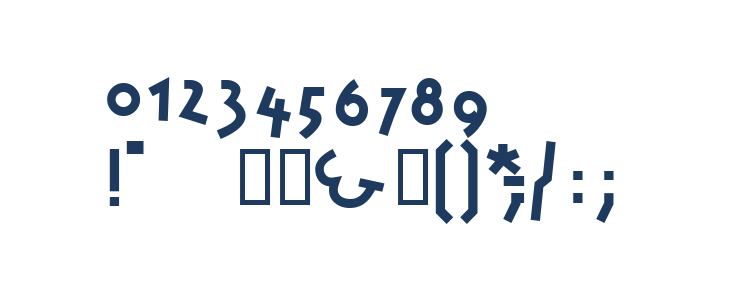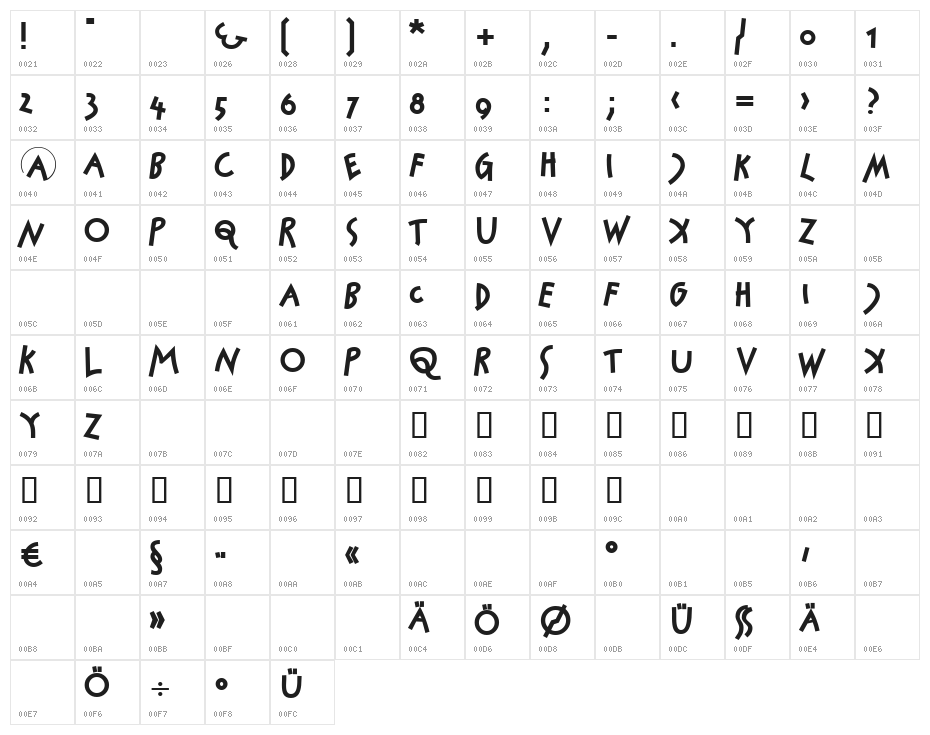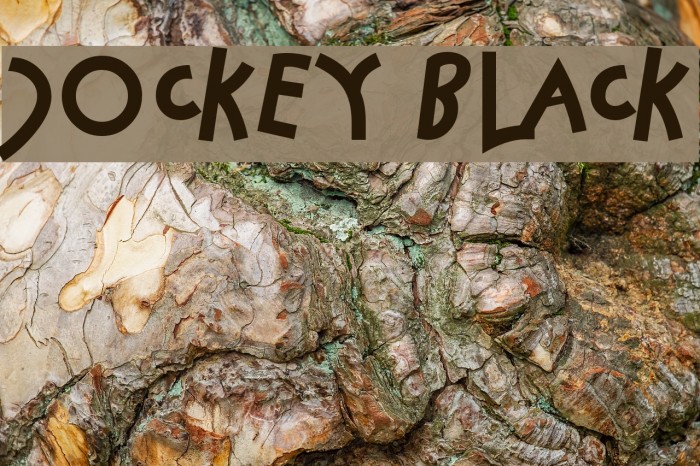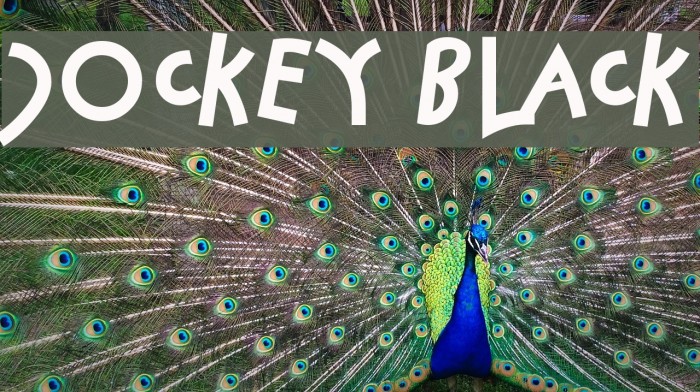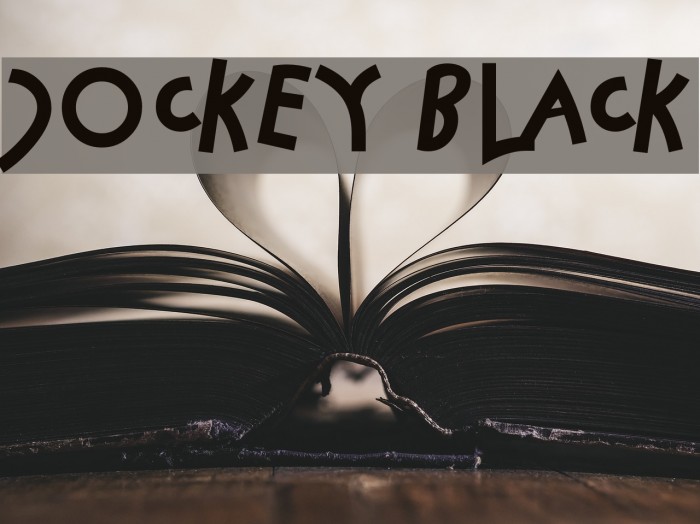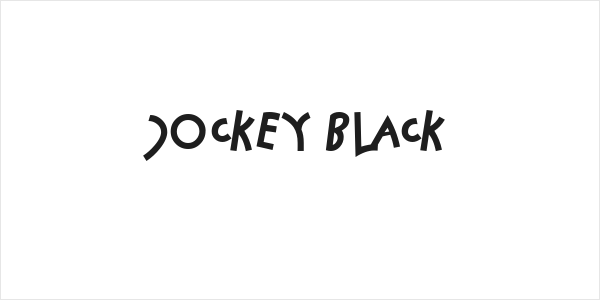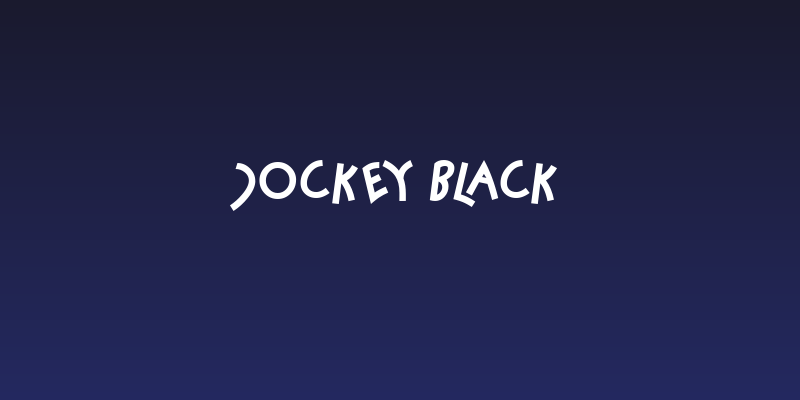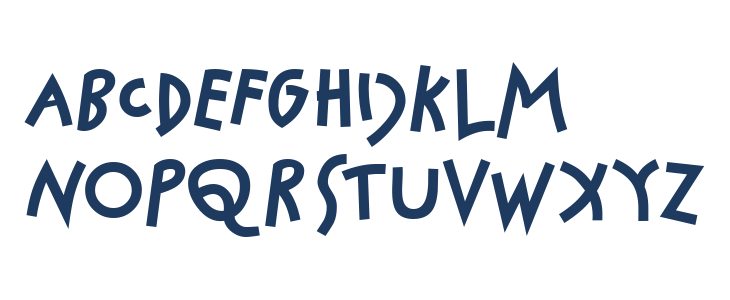
Jockey Black Font
Jockey Black Description
This font features a bold and dynamic style with a playful yet assertive character. The letters are slightly slanted, giving a sense of movement and energy. The strokes are thick and consistent, contributing to a strong visual impact. The unique shapes of the letters, such as the curved elements in 'B' and 'R', add a quirky and distinctive flair. The numbers and special characters maintain the same boldness and style, ensuring uniformity across all elements. This font is ideal for projects that require a bold statement or a creative touch.